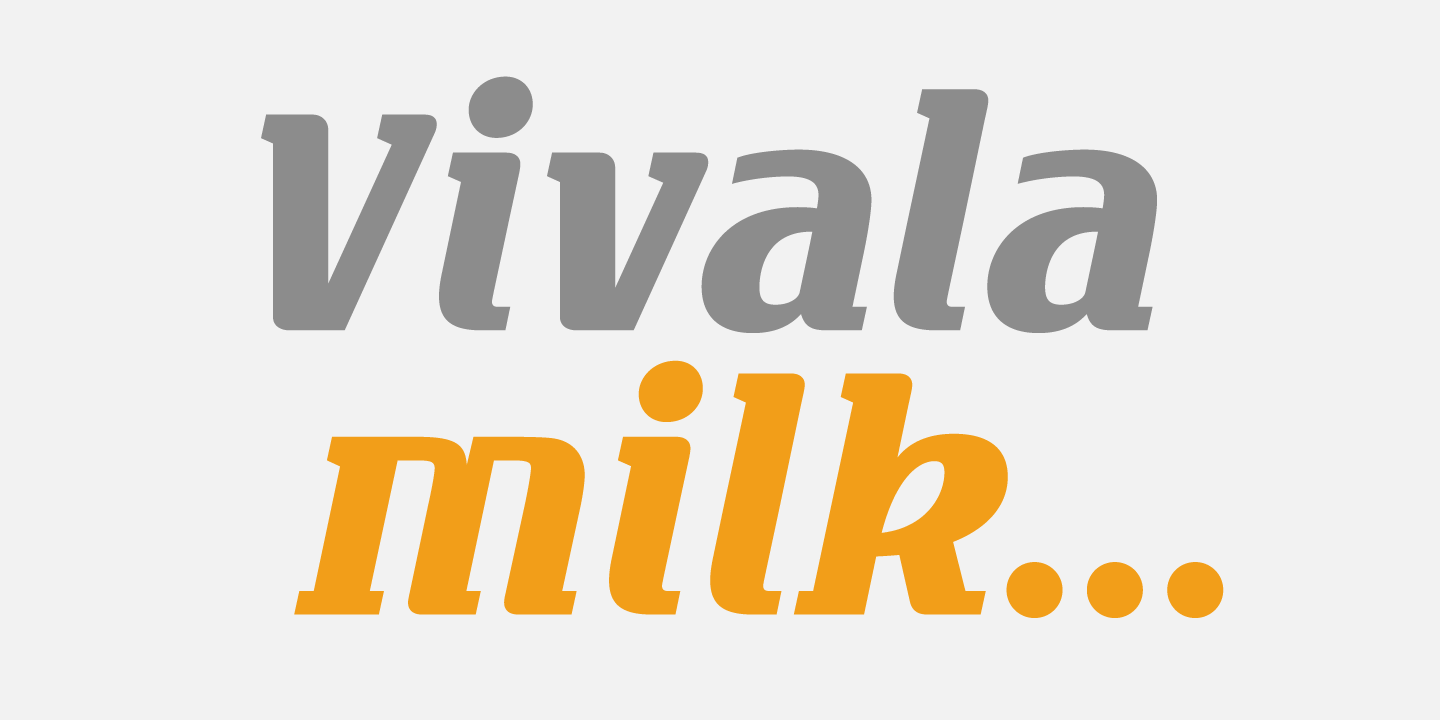
Vivala Milk
Designed by Johannes Hoffmann, Vivala Milk is a display slab font published by Johannes Hoffmann.
Vivala Milk is a sans serif display font with calligraphic genes and an extensive Latin language support.
It is ideal for headlines, posters, brands and magazines.
Vivala Milk is a sans serif display font with calligraphic genes and an extensive Latin language support. It is ideal for headlines, posters, brands and magazines.